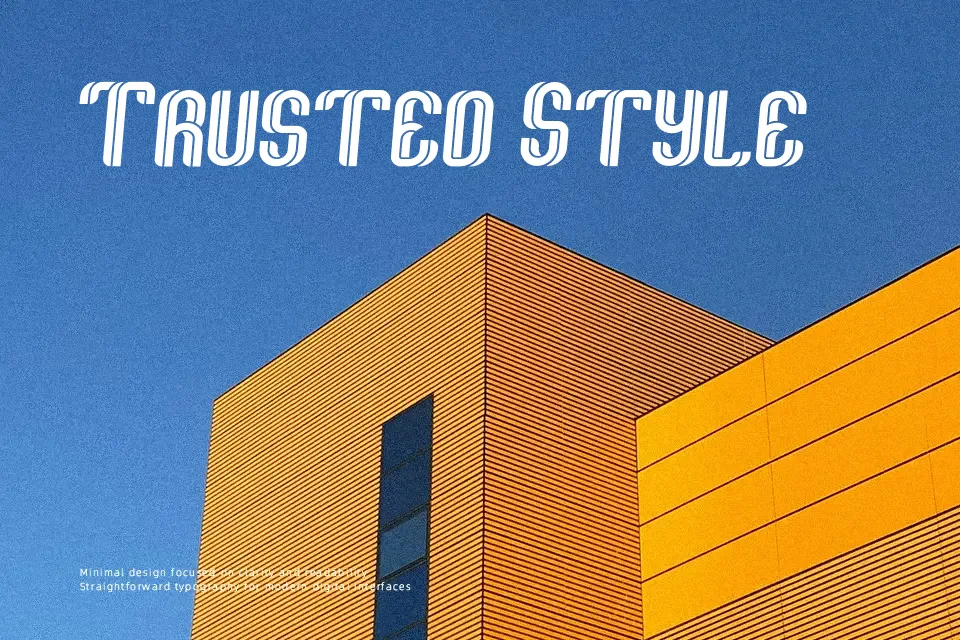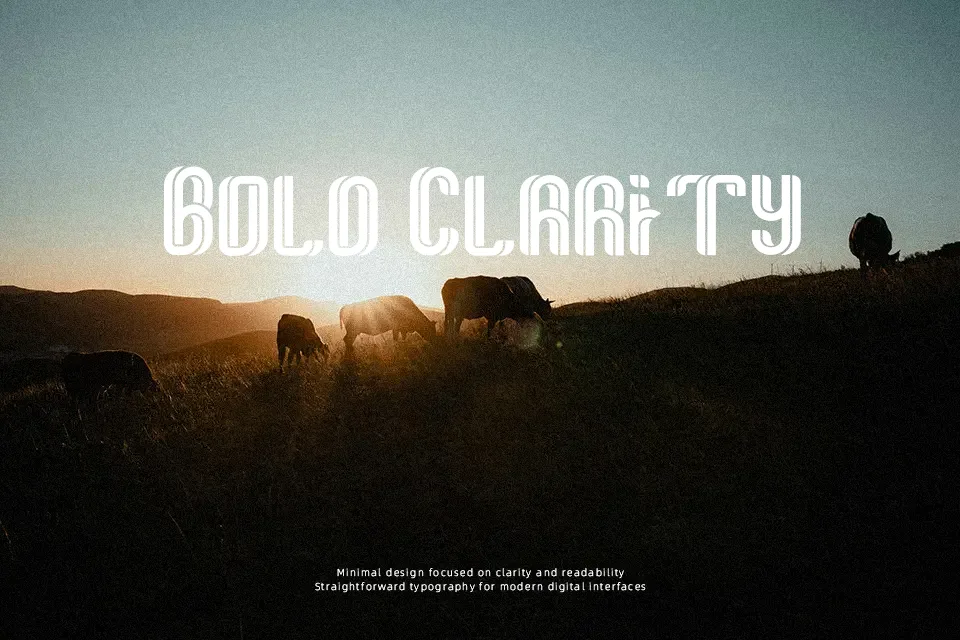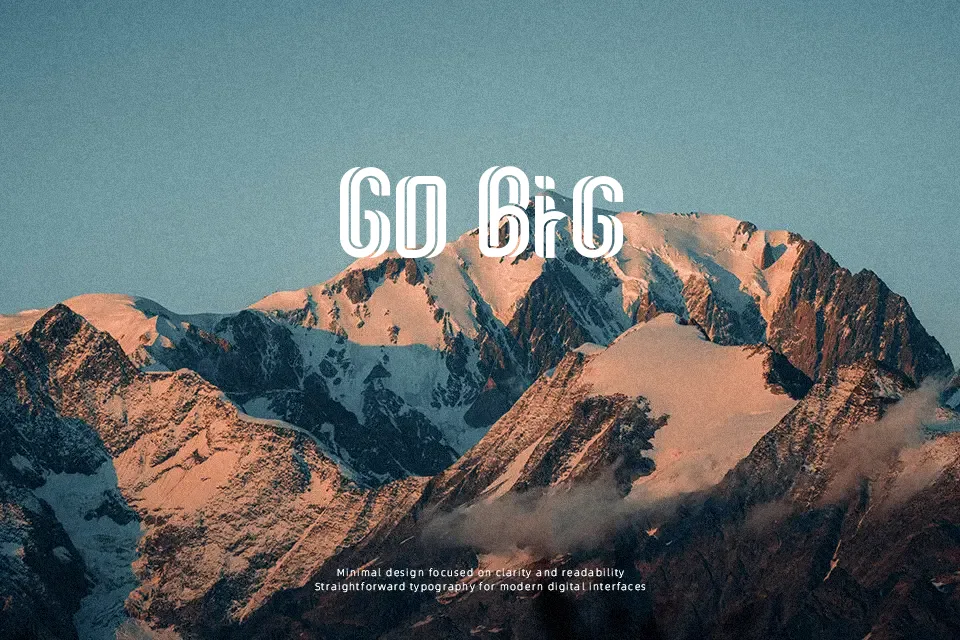
Reeford Font
Reeford Font captures attention immediately with its intricate, triple-lined structural design that mimics complex geometric labyrinths. The bold, tightly spaced uppercase letterforms deliver a striking three-dimensional appearance that dominates the visual space. Its heavy stroke style and solid proportions ensure maximum impact when used for large, energetic titles and striking logo marks. Because of its highly decorative nature, the dense letterforms reduce comfort during continuous reading, making the design much less effective at smaller sizes. The interlocking line work maintains strong visibility in large display text, but it requires careful layout planning to avoid overwhelming the viewer. This typeface performs exceptionally well for athletic apparel graphics, dynamic event branding, and bold posters.
athletic apparel graphics
dynamic event branding
bold poster headlines
energetic sports team logos
technical manuals
Perfect for 3d, branding, and headline, with a bold and decorative style.